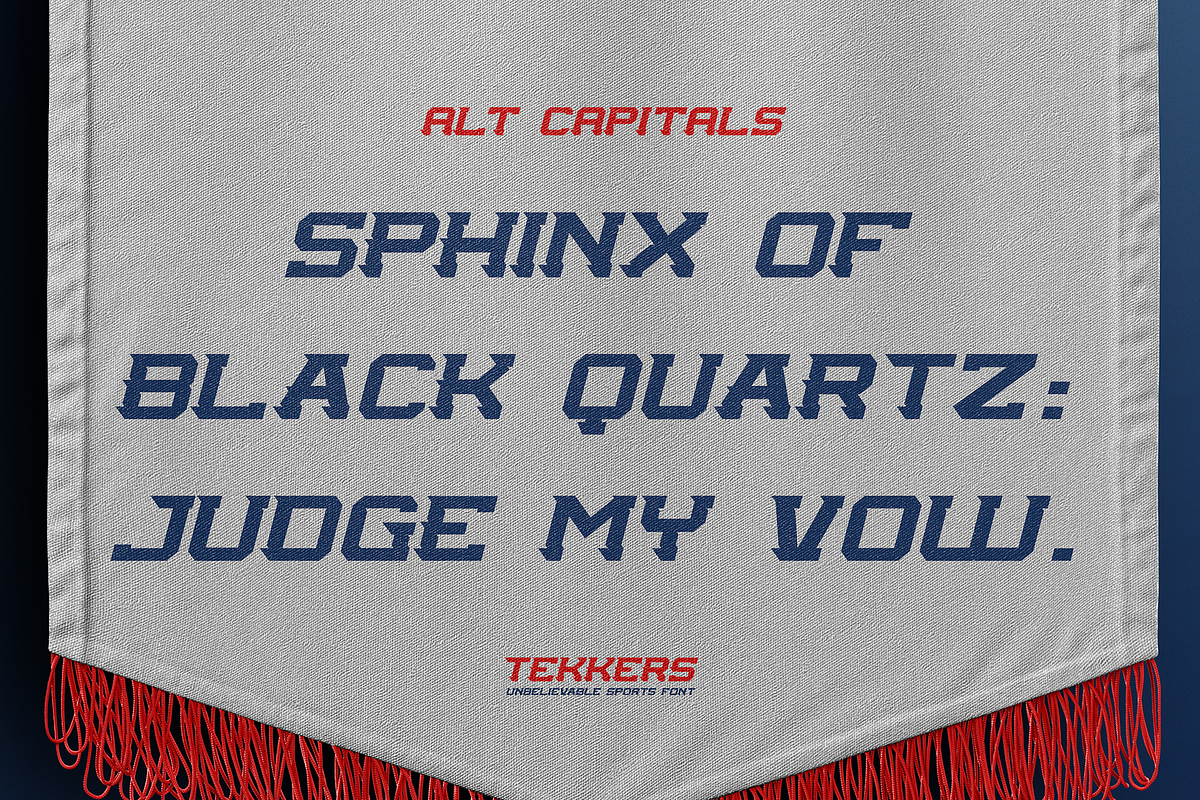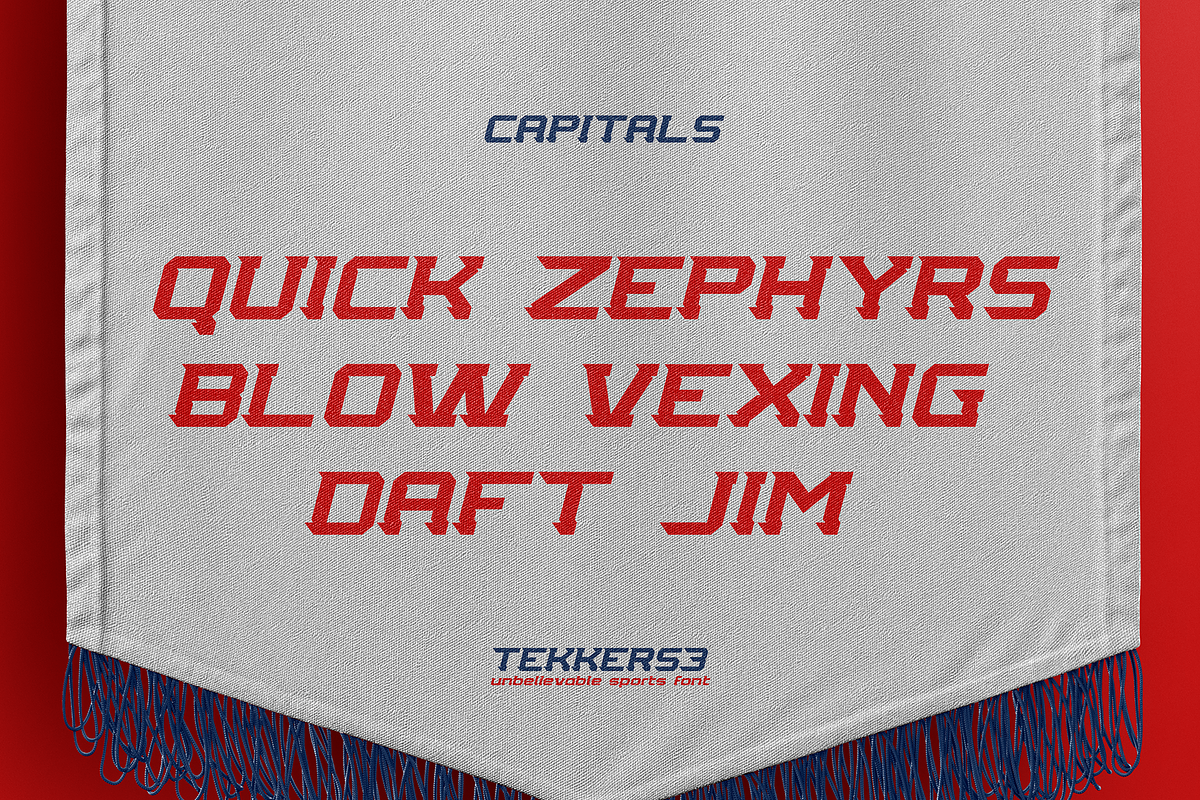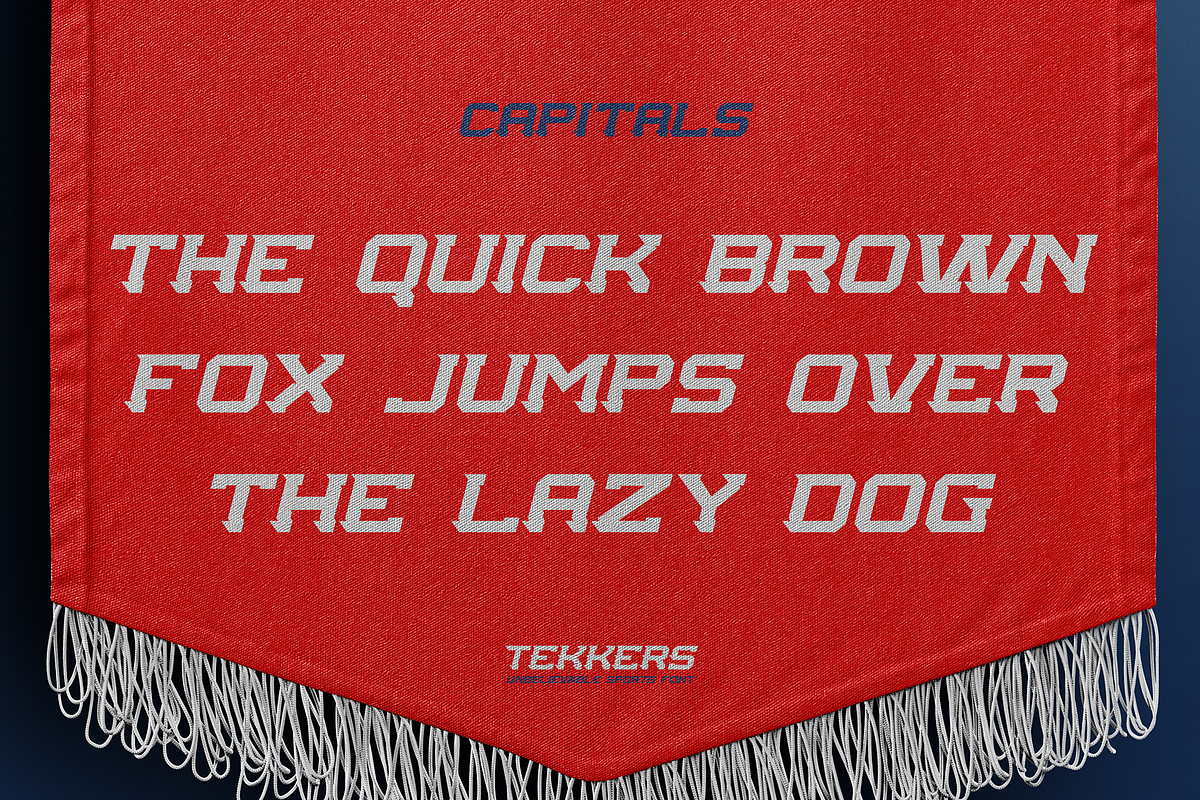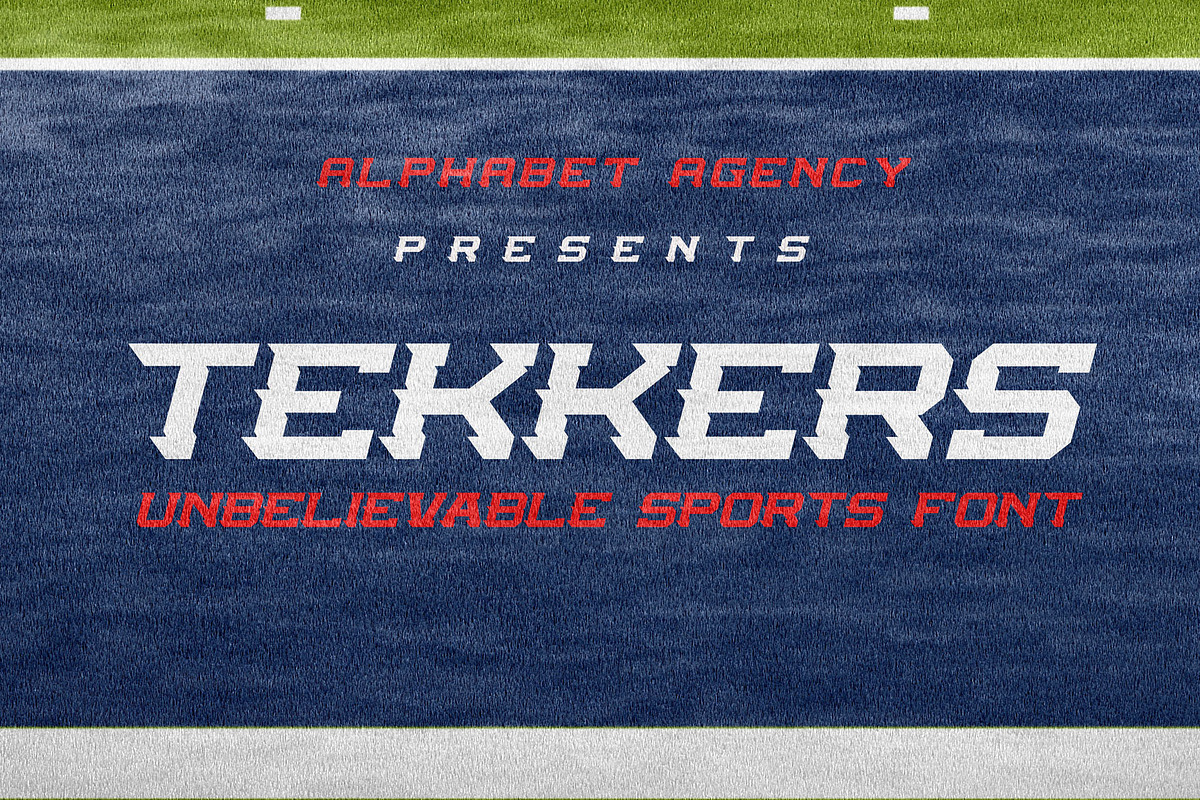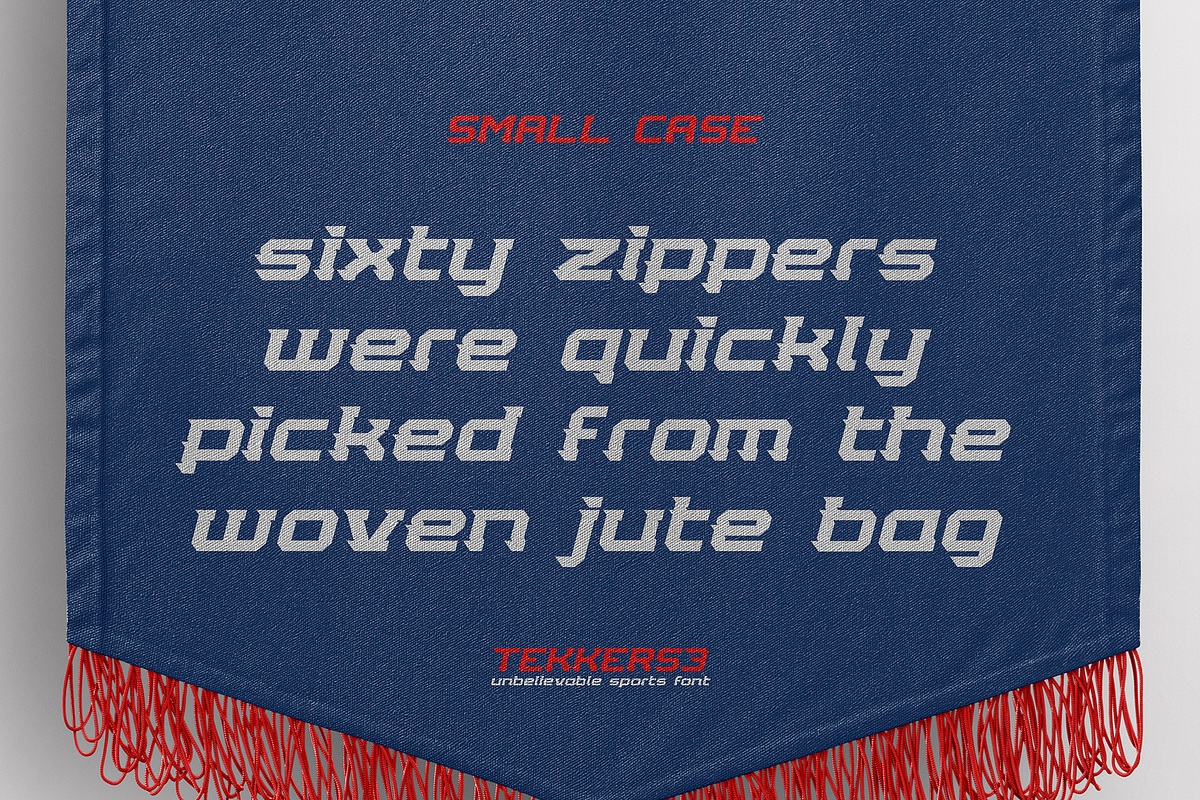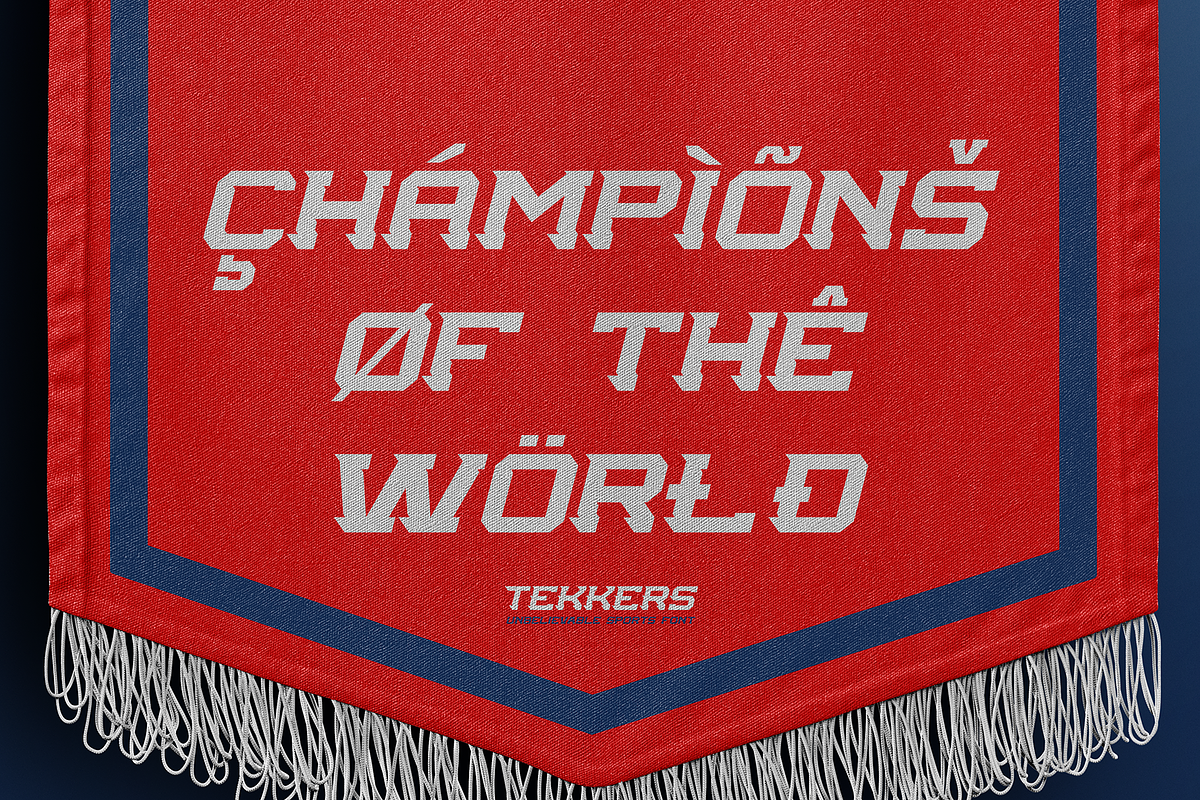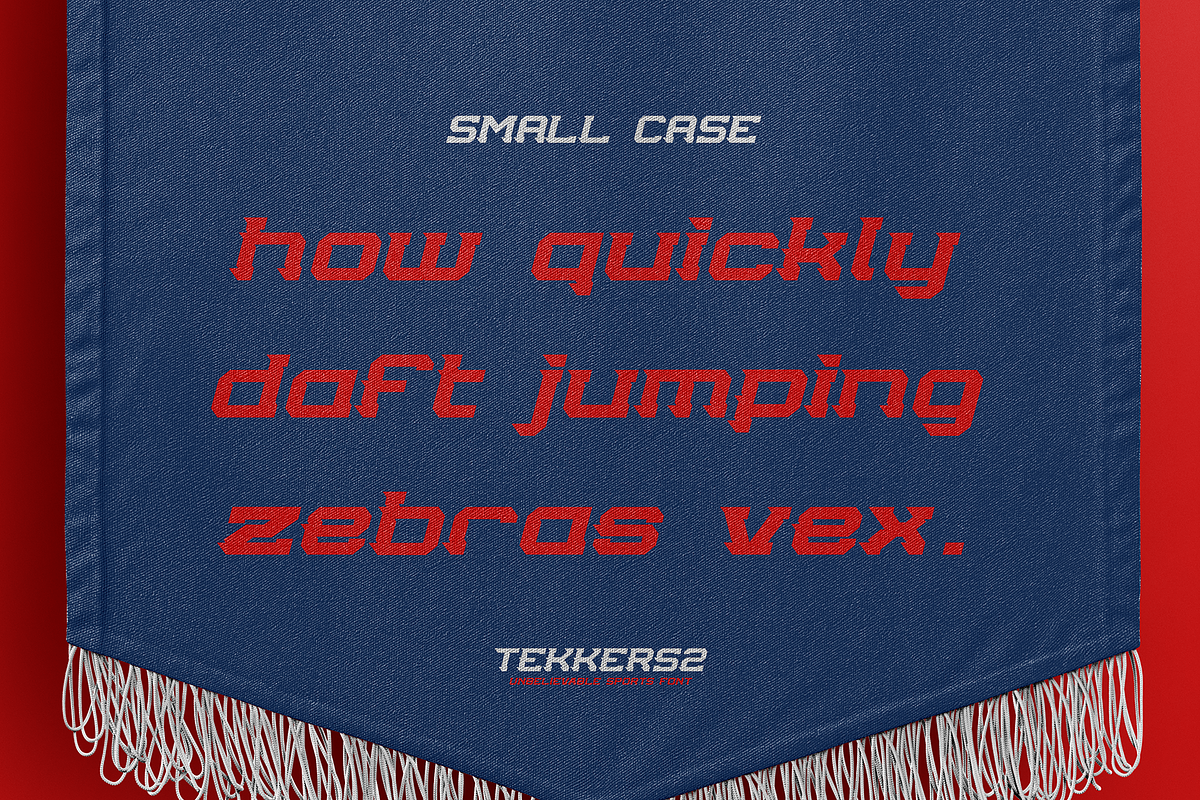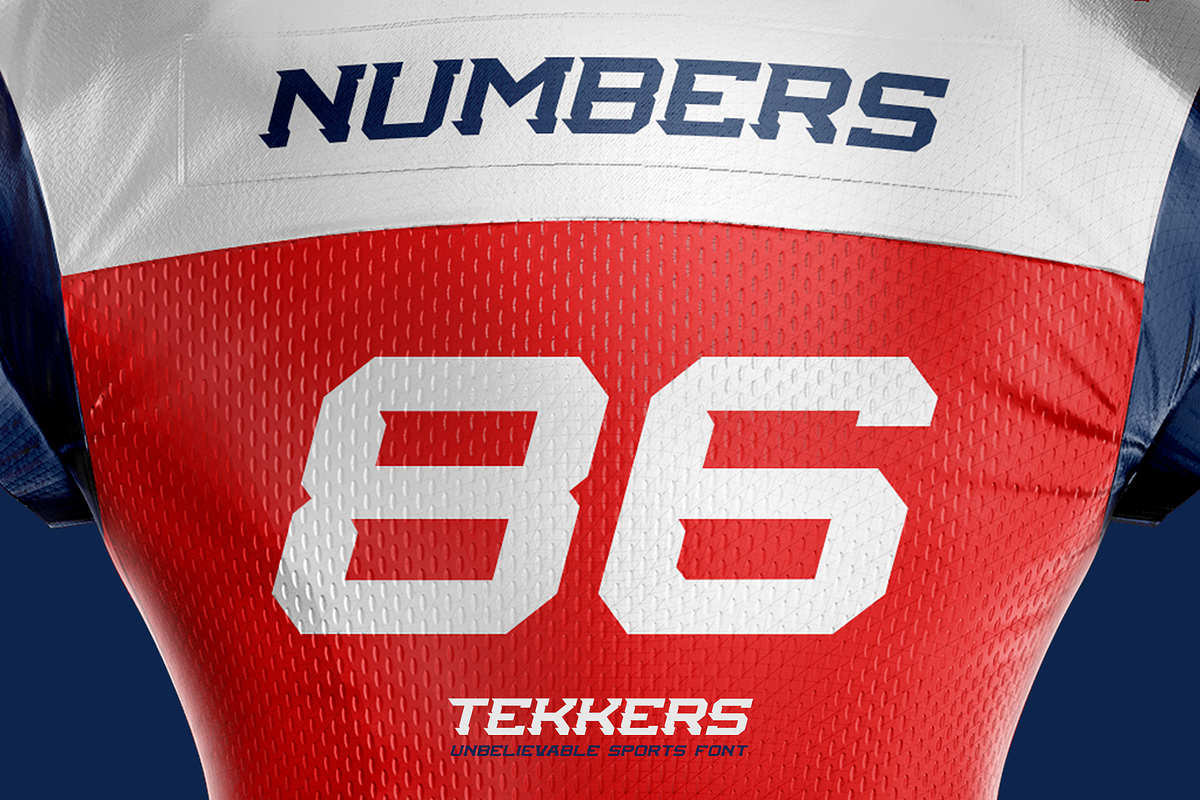
TEKKERS - UNBELIEVABLE SPORTS FONT
The Tekkers font family contains three fonts ; Tekkers, Tekkers2 and Tekkers3. The 3 fonts offer variants for capital and small case alphabet characters.
The italic stance, slab serif and sharp diagonal cuts create a striking motion expression.